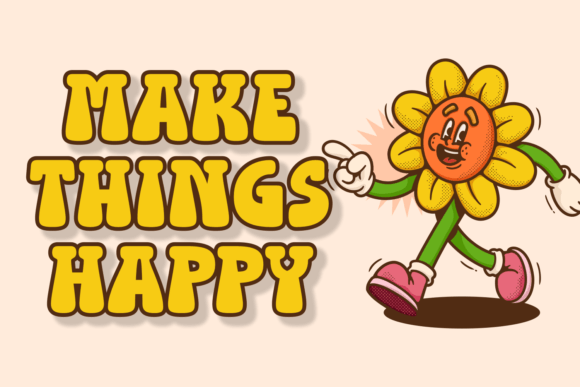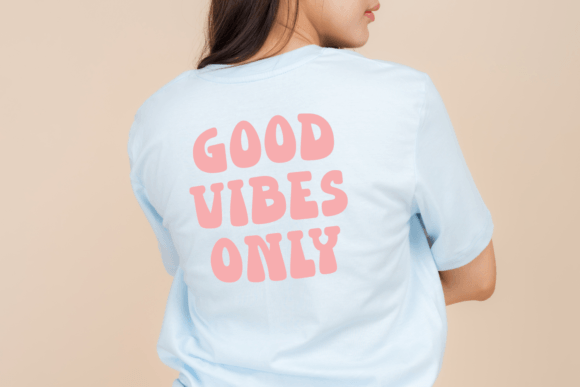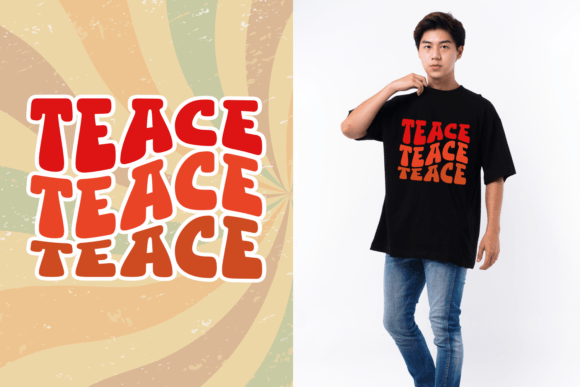
Introduction to Retro Great Font
Do you ever find yourself in the midst of a creative project, staring at a blank canvas or a blank page, and suddenly, the perfect font pops into your mind? For many designers, this is a moment of pure magic. It’s the moment when everything clicks into place, and the vision starts to take shape. And, for some of us, that perfect font is the Retro Great Font – a high-quality, free download that adds a touch of whimsy to any design.
This adorable display font is more than just a pretty face; it’s a valuable resource for designers looking to add a playful twist to their creative projects. With its thick, chubby characters and friendly demeanor, the Retro Great Font is an instant mood-booster, guaranteed to bring a smile to your face and a sparkle to your design.
Whether you’re working on a project with a transparent background or a bold, eye-catching design, the Retro Great Font is a versatile design resource that’s sure to deliver. So why not give it a try in your next creative project and discover the magic for yourself?
Key Features of Retro Great Font
- High-quality design: The Retro Great Font is designed with precision and care to ensure a crisp and clear visual experience.
- Perfect for creative projects: This font is ideal for graphic designers, illustrators, and artists working on creative projects that require a unique and eye-catching visual style.
- Resolution-independent: The font is designed to be resolution-independent, ensuring that it looks great at any size or resolution.
Honest Review: Retro Great Font
I recently had the chance to work with Retro Great Font and I must say it’s a great addition to any designer’s toolkit. This high-quality font is perfect for creative projects that need a touch of nostalgia and retro flair.
- ✨ Great for creating a vintage or retro aesthetic in your design
- ✨ Comes in a variety of styles and weights to suit your design needs
- ⚠️ Limited character set, which may not be suitable for longer texts
- ⚠️ Some users may find the font a bit too kitschy or overused
Overall, I’m impressed with Retro Great Font. It’s a great design resource that can add a unique touch to your creative projects. Just be mindful of its limitations and use it sparingly to avoid overusing the font.
Retro Great Font
Retro Great Font is a high-quality, free download perfect for any creative project. This versatile font features a transparent background, allowing you to easily overlay it on any design element. With its unique aesthetic, Retro Great Font is sure to add a touch of nostalgia to your next project.
Getting the Most Out of Retro Great Font
Here are a few tips to get the most out of Retro Great Font:
- Experiment with different font sizes and colors to create a unique visual effect.
- Combine Retro Great Font with other design elements to create a cohesive look.
- Use the font in conjunction with a transparent background to add depth and dimension to your design.
Retro Great Font is perfect for:
- Creating vintage-inspired graphics and designs.
- Adding a nostalgic touch to digital products and marketing materials.
- Designing retro-themed party invitations and decorations.